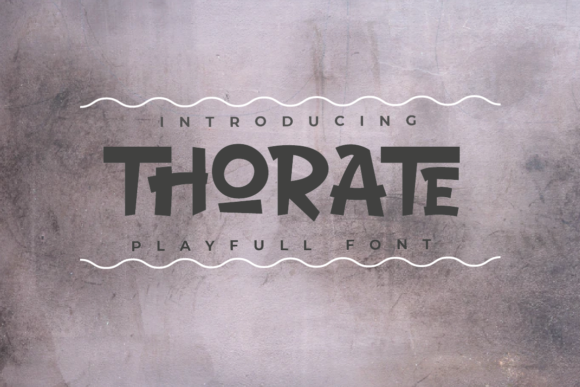
Embark on a whimsical adventure with Thorate Font, a display font that oozes charm and playfulness. Let your imagination soar as you explore its captivating collection of characters, each meticulously crafted to ignite joy and wonder.
Picture this: you're a culinary artist, passionate about creating edible masterpieces that tantalize taste buds and captivate eyes. You're entrusted with the task of designing food packaging that not only protects your culinary creations but also entices customers to indulge. Thorate Font steps onto the scene, ready to transform your packaging into an irresistible symphony of shapes and colors.
With its playful and cartoon-like demeanor, Thorate Font breathes life into your food packaging, turning it into an interactive playground for the eyes. Imagine the delight on your customers' faces as they encounter Thorate's cheerful characters adorning your packaging, beckoning them to embark on a culinary expedition like no other.
Beyond food packaging, Thorate Font's versatility knows no bounds. Unleash your creativity and let Thorate's magic touch elevate your designs. Whether you're crafting enchanting children's games, designing whimsical posters, or simply seeking to add a touch of lightheartedness to your projects, Thorate Font is your trusty companion.
Step into a world where imagination reigns supreme, where colors dance and characters come alive. Let Thorate Font be your guide as you create designs that capture hearts and leave an indelible mark on your audience. Embrace the joy, laughter, and childlike wonder that Thorate Font brings to your creations.